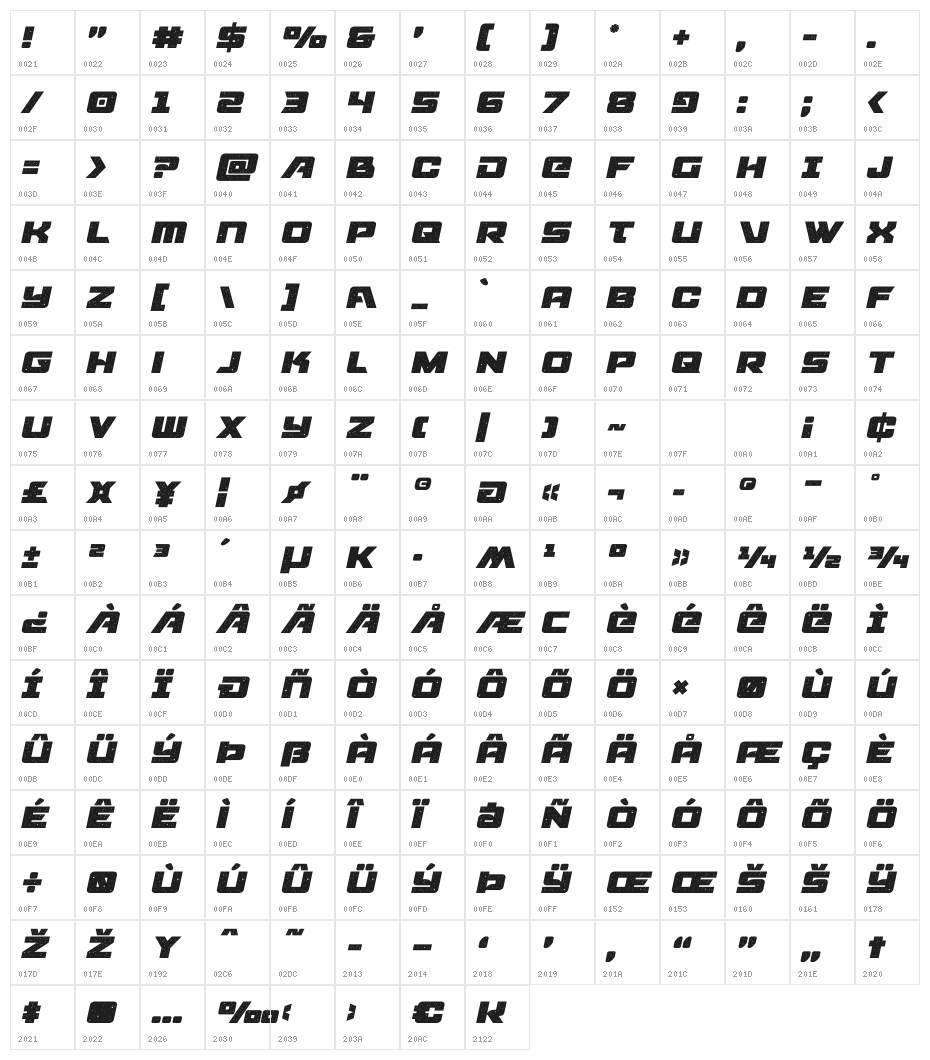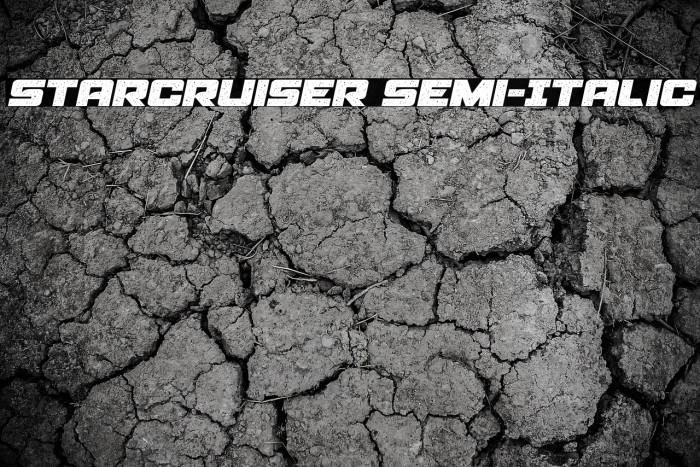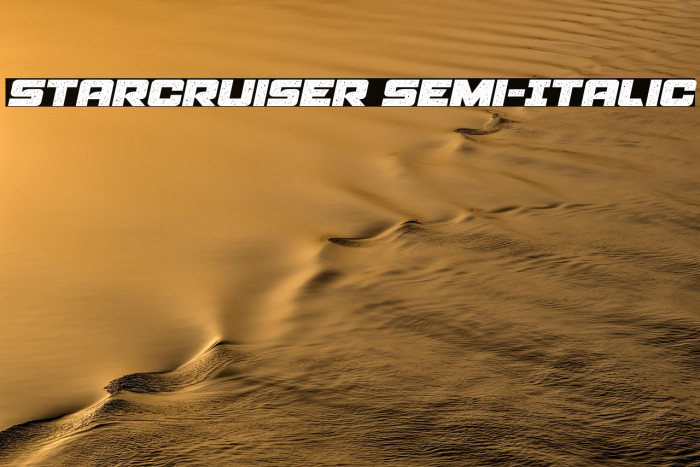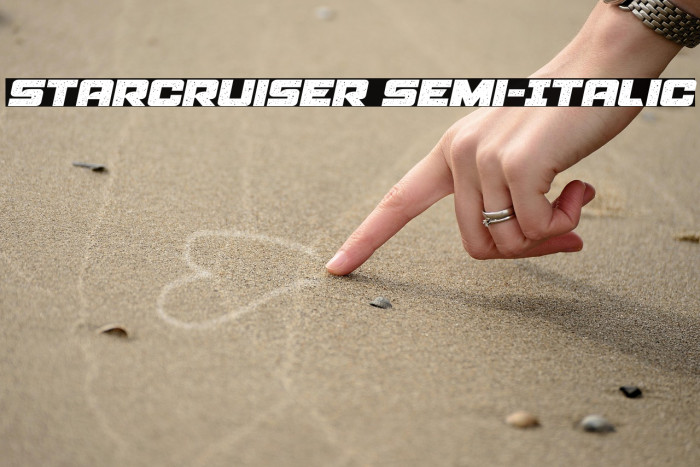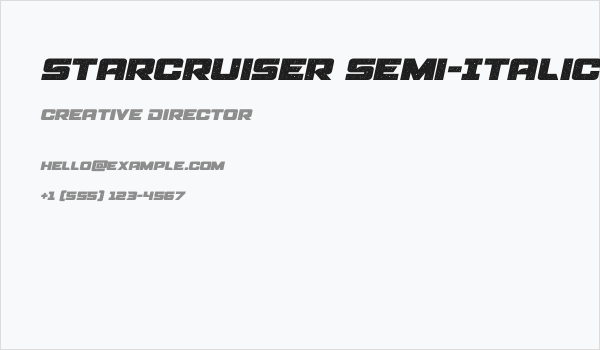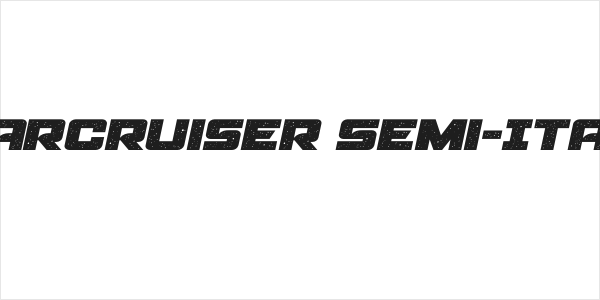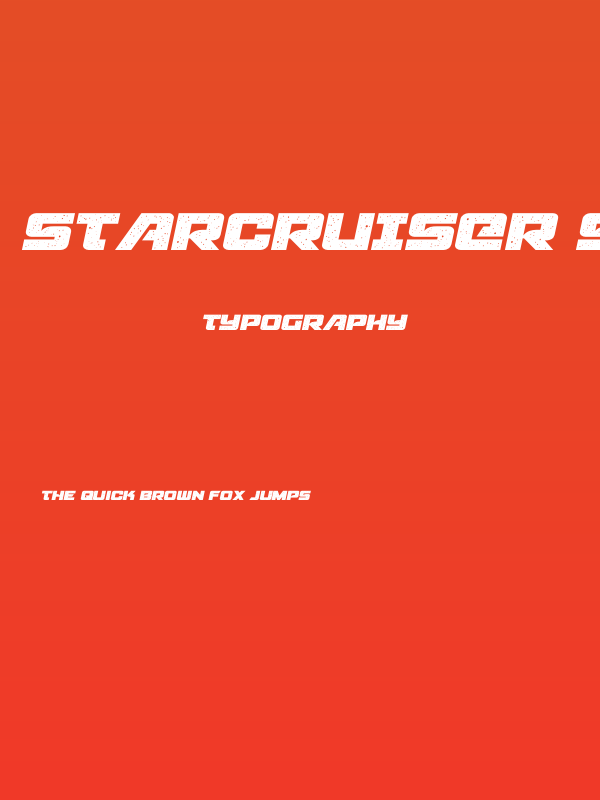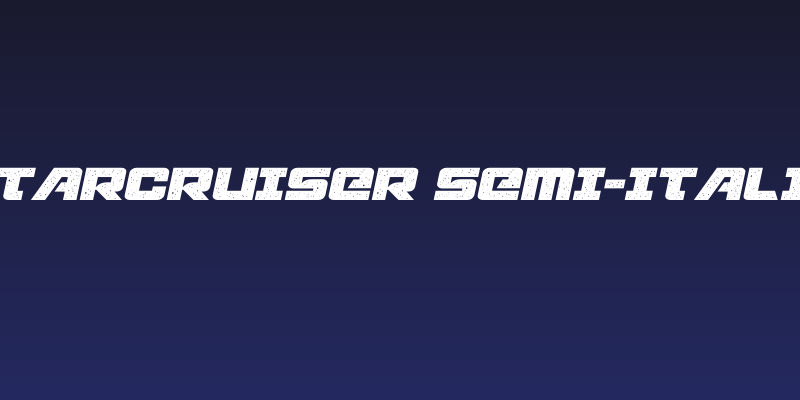
Starcruiser Semi-Italic Font
Starcruiser Semi-Italic Description
This font features a futuristic and dynamic design, characterized by its semi-italic slant and bold, geometric letterforms. The characters are adorned with a starry pattern, giving them a cosmic and adventurous feel. The uppercase and lowercase letters maintain a consistent style, with sharp angles and a streamlined appearance. The numerals and special characters follow the same aesthetic, ensuring a cohesive look across all glyphs. This font's unique design makes it stand out, perfect for projects that require a touch of science fiction or space-themed elements.
| Overall Style | Futuristic, Decorative |
| Proposed Projects | Ideal for sci-fi book covers, space-themed posters, video game titles, and futuristic branding. |